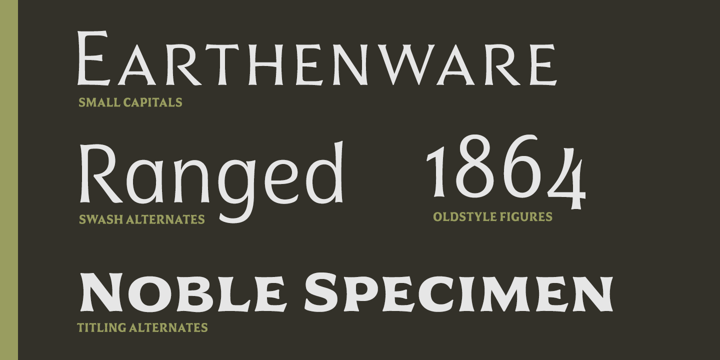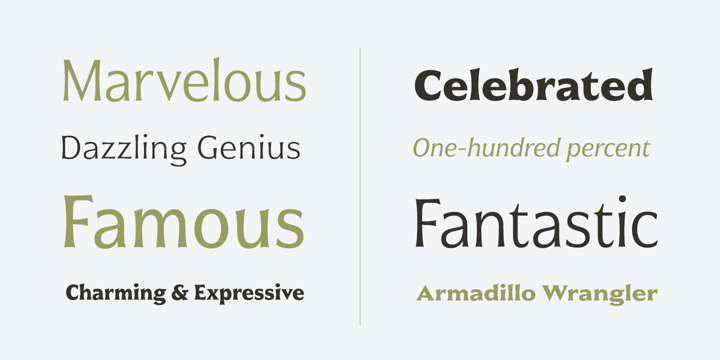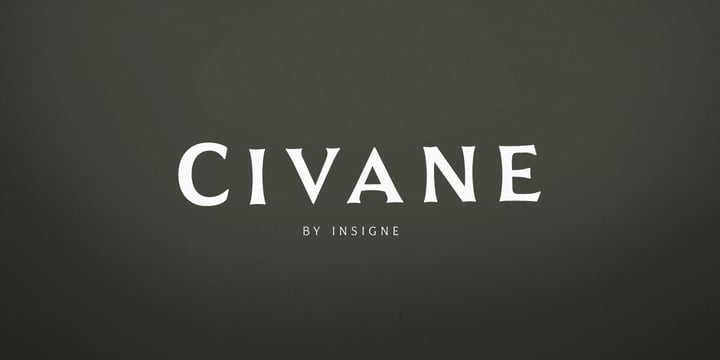
Civane™
by insigne
The Civane Font Family was designed by Jeremy Dooley and published by insigne. Civane contains 48 styles and family package options.
High atop the mountain of fonts, a new structure has been raised--one solid and strong against the challenges of time. Civane is a victorious conqueror among fonts, standing above the clutter and the mundane. Its firm structure joins effortlessly with graceful calligraphy in a new flowing, inscriptional typeface. Civane is inspired by monuments of great civilizations, whose lofty inscriptions remain chiseled into the very stones and columns of their structures. The font’s medium contrast with its flared stroke ends lead the reader to feel the solemn presence found in these great obelisks and shrines. Even Civane’s thinnest weight holds a quiet power over its audience. Still, its classic lines provide a beautiful flow between the strong letters, allowing the reader’s eye to move easily across the page. Civane supports OpenType features and comes with upright italics, alternates, ligatures, old-fashioned figures, titling and small caps. Preview all these features in the interactive PDF manual. The font family has 48 fonts, with three widths and eight weights. The font family also includes glyphs for 72 languages; over 550 glyphs per font stand ready for you to command throughout your design. Civane is built for advertising and display typesetting as well as title and small text, making it an excellent choice for websites as well as flyers and packaging. Use it for defining your brand or for creating designs that evoke academia, militaria, monuments, automobiles, signs, and so on. Its 48 well-designed fonts are well-equipped to help you leave your mark on history. Production assistance from Lucas Azevedo and ikern.
About insigne
“Type is very much like music,” says Jeremy Dooley. “It is linear, and the notes or phrases have to fit the theme or song.” Jeremy, owner of the one-man foundry, insigne, is a self-taught type designer and a true self-made success story. His label is home to over a hundred font families, many of which have seen great success. Aviano has made our Best of the Year list not just once, but twice and has been featured in Hollywood blockbusters. You may have noticed various iterations of Aviano in Wall Street, Harry Potter, and Thor, and it was used for the branding of Robin Hood. Jeremy considers type to be the foundation of advanced visual communication. One form of communication that the Chattanooga-based designer is drawn to is branding. In 2011, Jeremy, took on the enormous project of coming up with a typeface that would communicate the tone and feeling of his hometown; a font that would effectively brand the city. In 2013, the result, Chatype, was named the official typeface of Chattanooga TN. “Every city needs a brand,” he says, “as every city needs to highlight its own distinctive offerings.” Like many designers, his creations are often the result of his interests. “I especially like seeing my typefaces in movies, on luxury packaging, and for technology companies,” he says. “These are interests of mine, and I often design fonts with those specific applications in mind. It’s very interesting to me that I frequently see fonts used in exactly the way I originally envisioned.” Since he began selling his first font on MyFonts in 2004, the man who will tell anyone who asks, “I’m not really from anywhere,” has continuously drawn inspiration from his many experiences gained from living all over the globe. Want more of Jeremy? The designer sat down with us for an in-depth interview in this issue of Creative Characters.